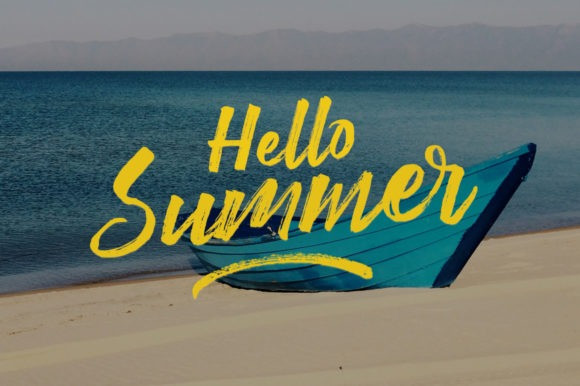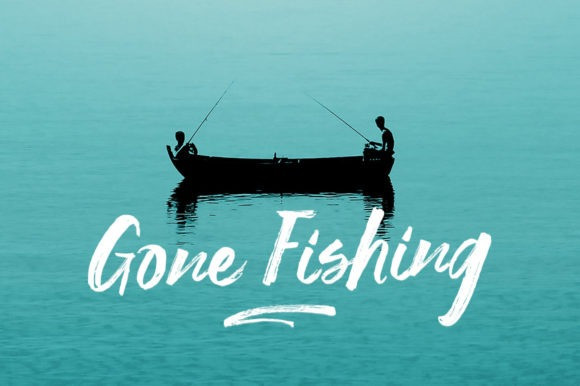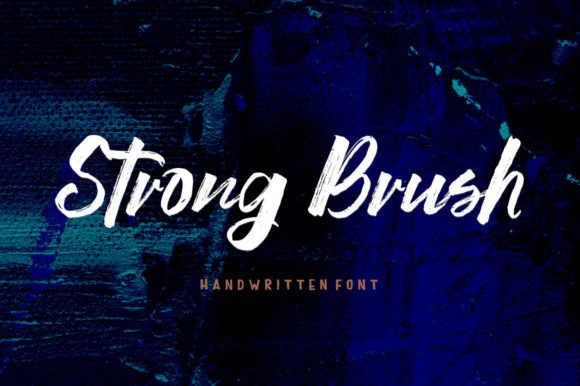
Strong Brush Font
Strong Brush Font, is a chic, refined script font that emanates sophistication and elegance. Its stylish alternates and ligatures make this font the perfect match for any project.